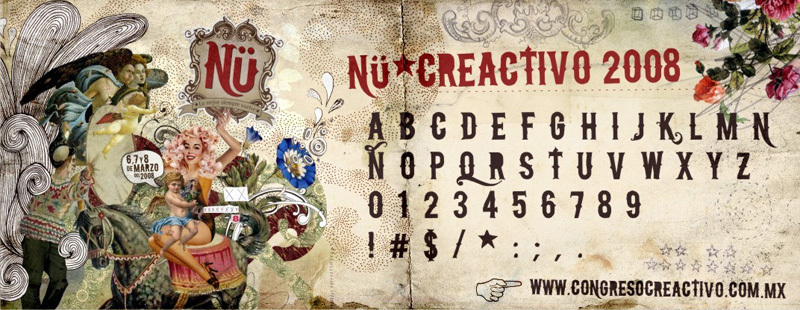
Nü*Creactivo 2008 is a bold, eye-catching display font that exudes a rugged, Western-inspired aesthetic. Designed by Bran, this condensed typeface features distinctive sharp angles, geometric letterforms, and a touch of playfulness.
The font's versatile style lends itself well to a range of design applications, from posters and packaging to branding and signage. Its striking visual impact and attention-grabbing presence make Nü*Creactivo 2008 an excellent choice for projects seeking a bold, statement-making typographic treatment.
The font's unconventional yet cohesive design invites creative exploration and can elevate the visual identity of any design project.